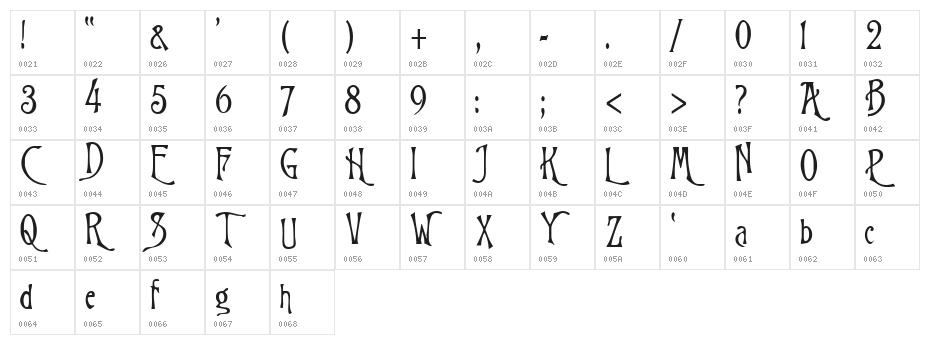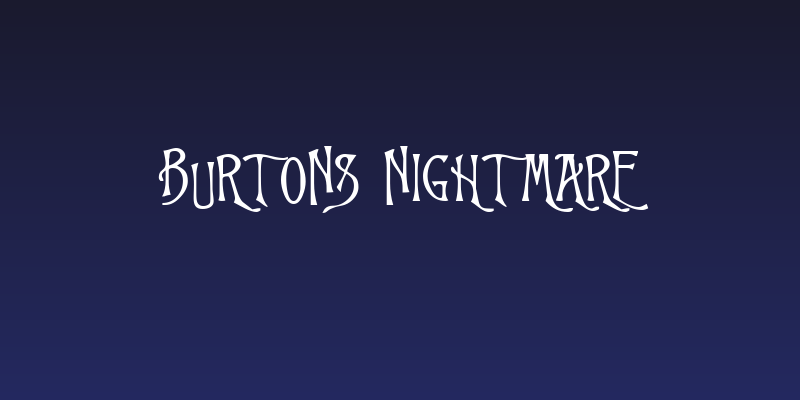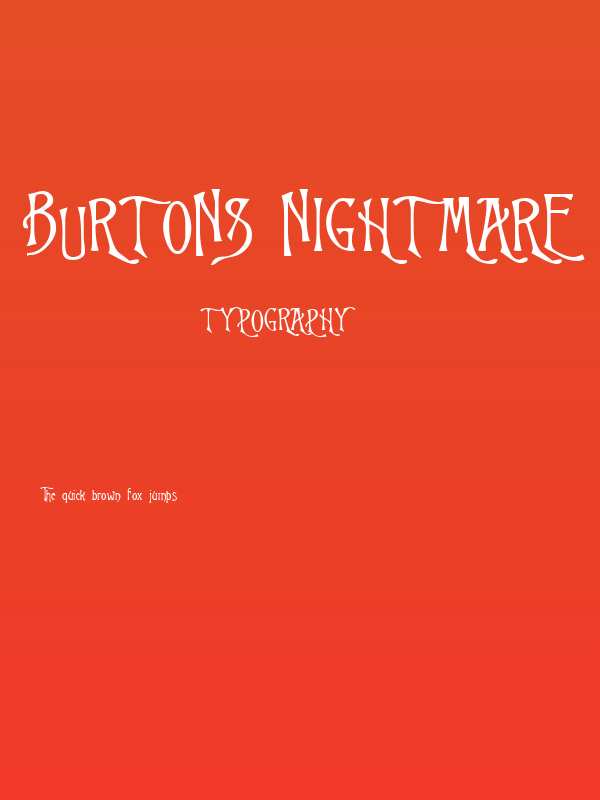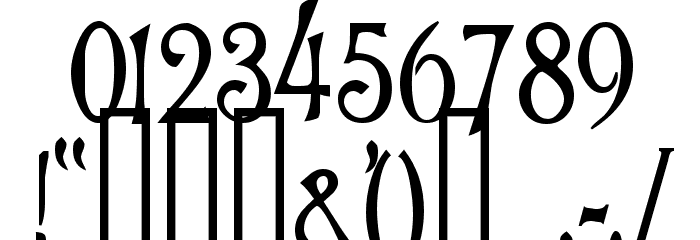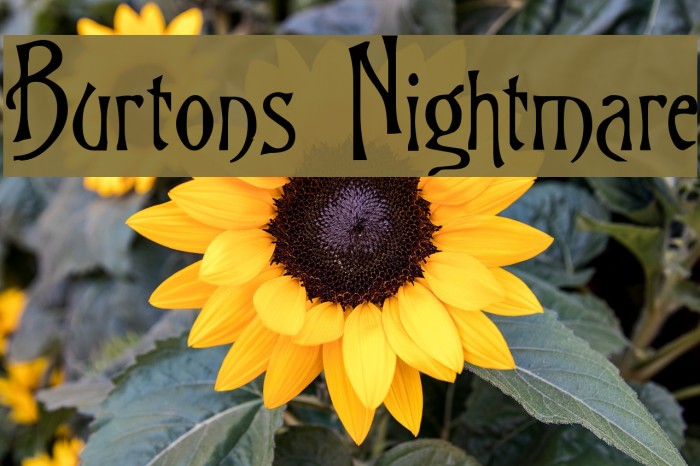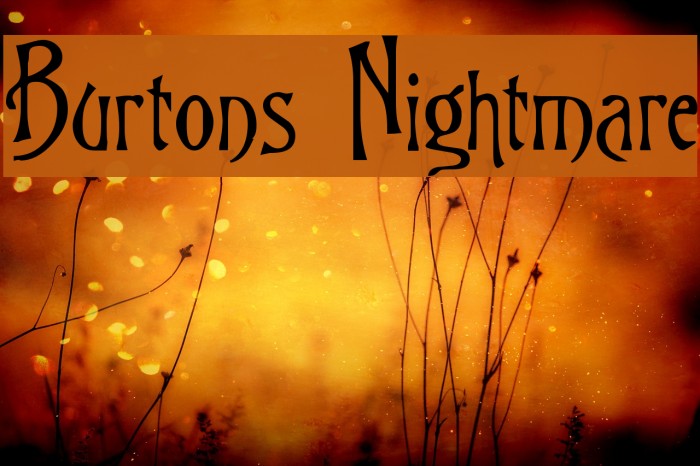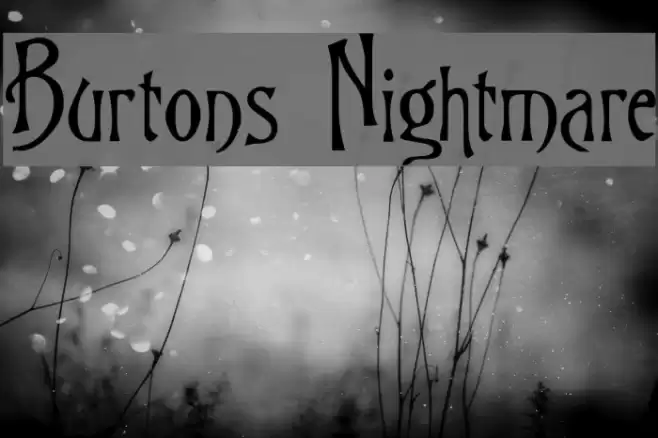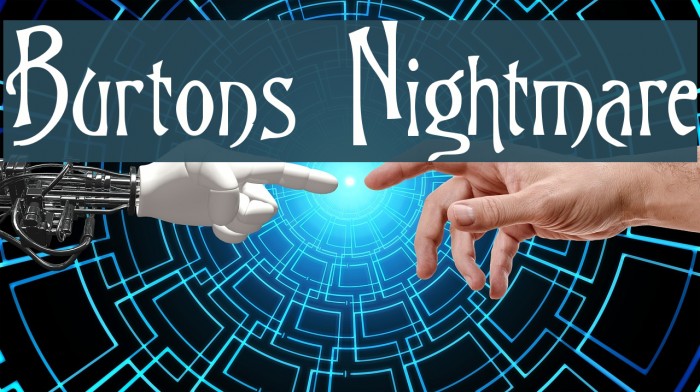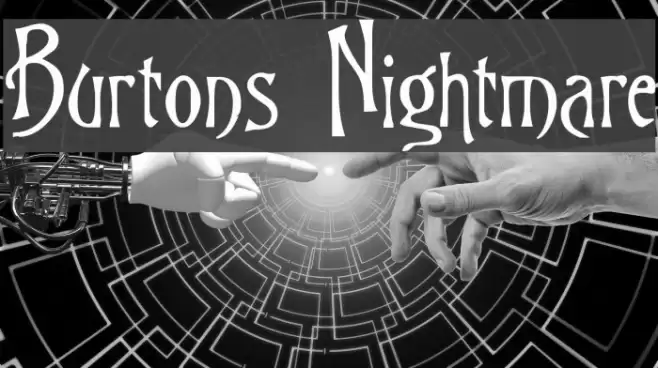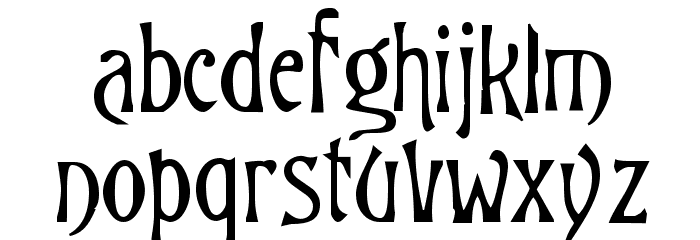
Burtons Nightmare Font
Burtons Nightmare Description
This font features a whimsical and slightly eerie design, characterized by its sharp, elongated serifs and playful curves. The uppercase letters are bold and dramatic, with exaggerated strokes that give a sense of movement and energy. Lowercase letters maintain a consistent style, with unique flourishes that add to the font's quirky personality. Numbers and special characters are crafted with the same attention to detail, ensuring a cohesive look across all elements. The overall aesthetic is reminiscent of a fantastical, gothic theme, making it ideal for projects that require a touch of the unusual or mysterious.
| Overall Style | Gothic, Whimsical, Fantastical |
| Use Case | Headlines, Posters, Themed Events |
| Proposed Projects | Ideal for Halloween-themed designs, fantasy book covers, movie posters, or any project needing a touch of the mysterious. |